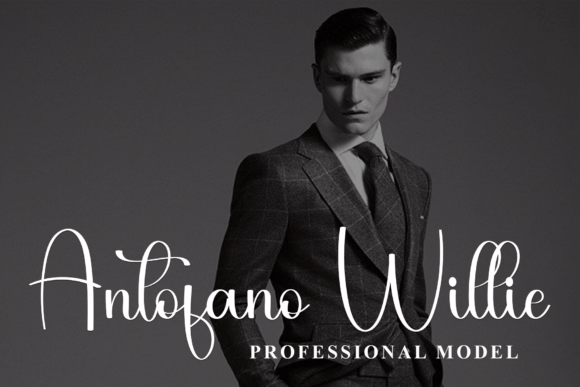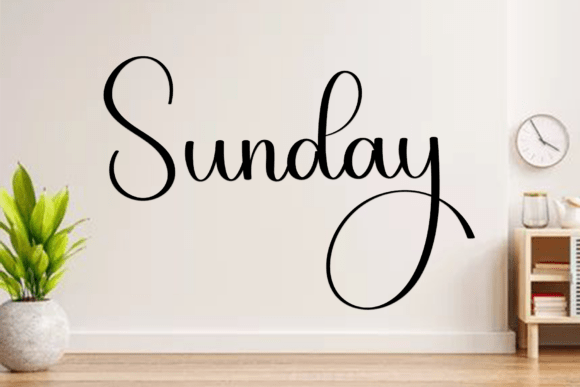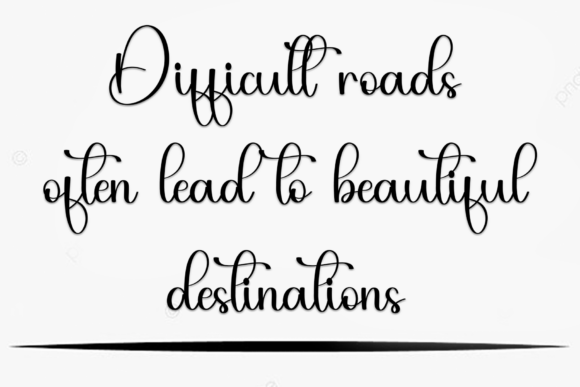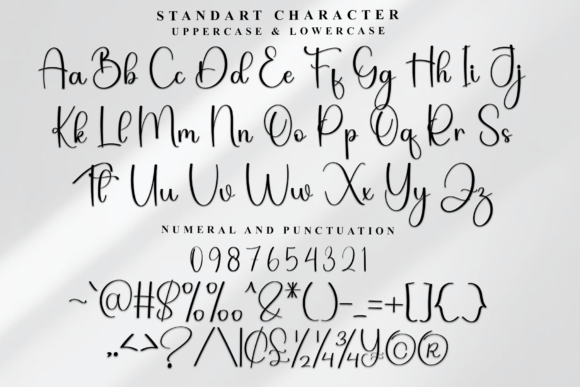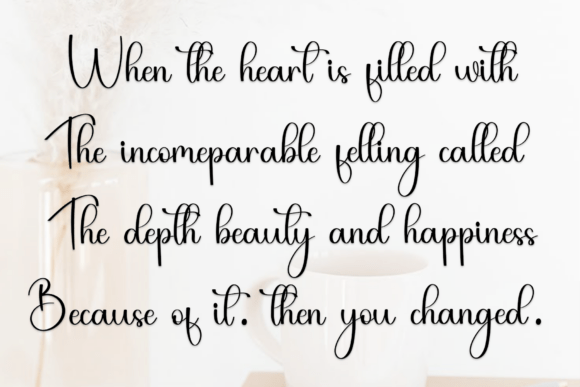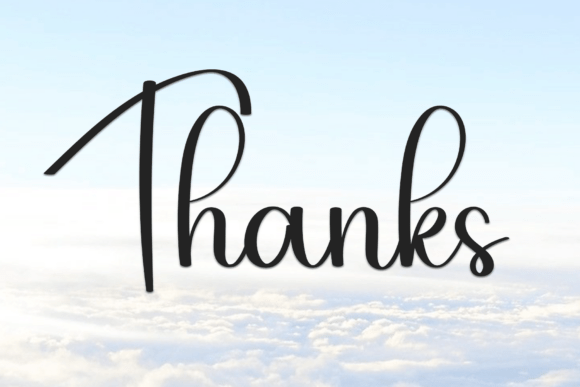
Introducing Big Baby Font: The Ultimate Casual and Creative Companion for Designers and Crafters
In the world of typography, fonts play a crucial role in conveying emotions and setting the tone for any design project. If you’re a designer or crafter looking for a font that exudes warmth, friendliness, and a touch of playfulness, then Big Baby Font is the perfect companion for you. This casual and creative font is designed to add a relaxed and approachable feel to your personal projects, invitations, social media graphics, and more.
The Charm of Big Baby Font
Big Baby Font boasts round, playful strokes that create a charming, hand-drawn aesthetic. This unique touch adds a fun and distinctive element to any design, making it perfect for those who want to infuse their work with personality. The font’s casual demeanor makes it an excellent choice for personal projects, such as handmade crafts, DIY tutorials, and blog posts.
Big Baby Font is versatile and can be used in a wide range of design applications. Whether you’re working on:
- Personal projects, such as handmade crafts, DIY tutorials, and blog posts
- Invitations, like birthday party invites, wedding announcements, and baby shower invitations
- Social media graphics, including Facebook posts, Instagram stories, and Twitter headers
- Branding materials, such as logos, business cards, and brochures
This font is sure to add a touch of warmth and friendliness to your designs.
Technical Features of Big Baby Font
Benefits of Using Big Baby Font
So, why choose Big Baby Font for your design projects? Here are just a few benefits:
- Easy to read: Big Baby Font is clear and legible, making it perfect for body text and headings
- Versatile: Use it for personal projects, invitations, social media graphics, and more
- Unique and playful: Add a touch of personality to your designs with Big Baby Font’s charming, hand-drawn aesthetic
Tips for Using Big Baby Font Effectively
To get the most out of Big Baby Font, here are a few tips:
- Pair it with complementary fonts: Combine Big Baby Font with other fonts to create a unique and visually appealing typography
- Experiment with font sizes and colors: Play around with different font sizes and colors to add depth and interest to your designs
- Use it for headings and titles: Big Baby Font is perfect for headings and titles, adding a touch of personality to your designs
Big Baby Font is a casual and creative font that’s perfect for designers and crafters looking to add a touch of warmth and friendliness to their designs. With its charming, hand-drawn aesthetic and compatibility with various application engines, Big Baby Font is an excellent choice for personal projects, invitations, social media graphics, and more. So why not give Big Baby Font a try and see how it can elevate your designs?